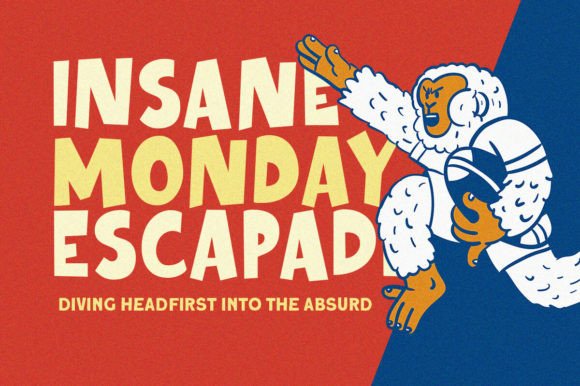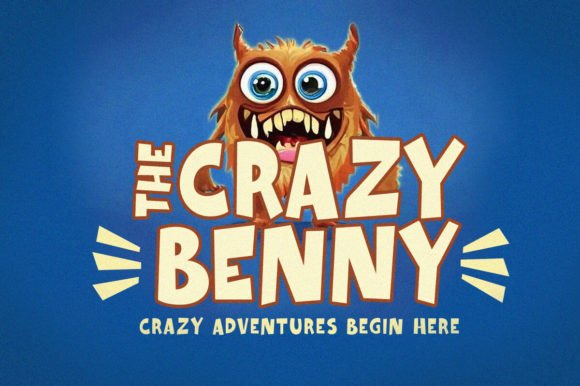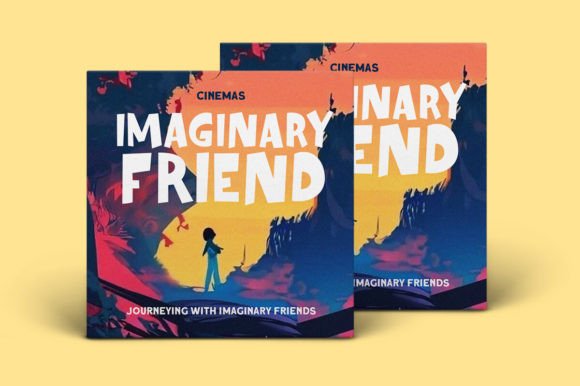
Whimsy World Font
Whimsy World is a playful bold display with unique letterform. This font perfectly made to be applied especially in logo, and the other various formal forms such as invitations, labels, logos, magazines, books, greeting / wedding cards, packaging, fashion, make up, stationery, novels, labels or any type of advertising purpose.